Surprisingly Many Kana System Glyphs 01: “Hiragana: Not Enough with 50 Characters”
“The 50 sounds in Hiragana” are often referenced. However, when creating Hiragana in font creation, 50 glyphs are not enough, and usually an approximate 100 glyphs are created.
Glyphs, such as “がぎぐ” with voiced dots, “ぱぴぷ” with semi-voiced dots, and small scripts including “ゃゅょ” used in palatalized doubled consonants, etc., must be complete in order to correspond to normal sentences. Even up to here, approximately 80 glyphs are needed. For kana in small scripts, separate glyphs for horizontal typesetting and vertical typesetting are prepared, respectively. Although the frequency of use is low, “ゑゐ” are created at the same time. The number of glyphs needed is then close to 100.
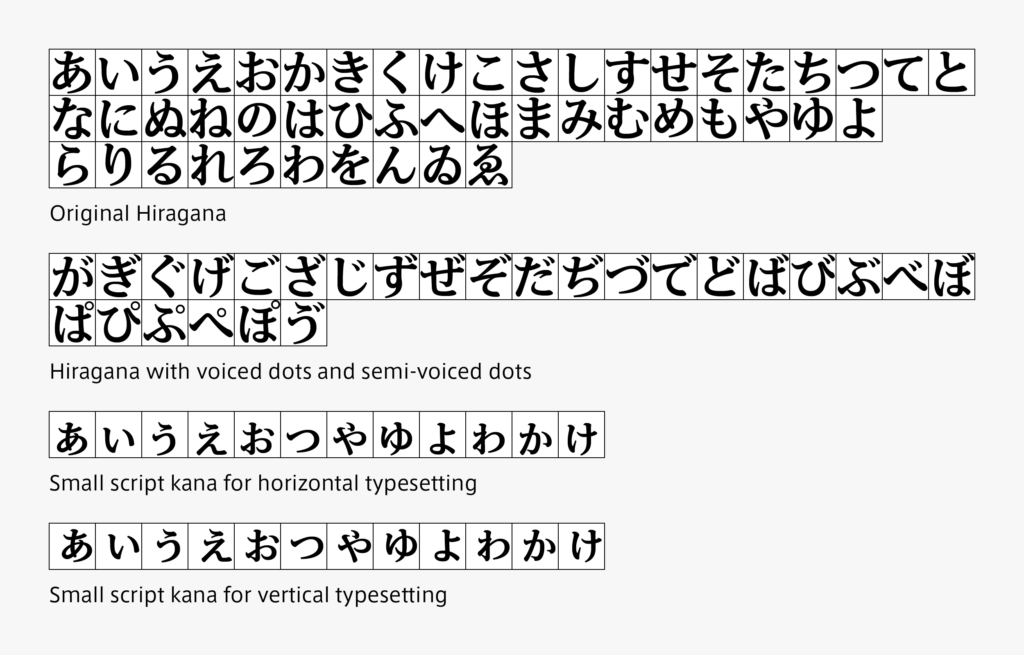
In addition to Hiragana, Katakana is prepared in a similar fashion. Therefore, creating only kana means creating approximately 200 glyphs. To say more, a dash-like symbol “ー,” and ditto marks “ゝゞ” often used with kana should be created and checked together.